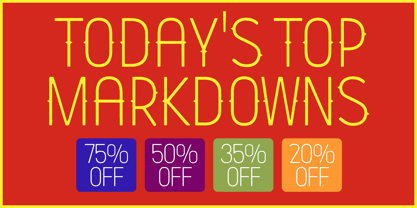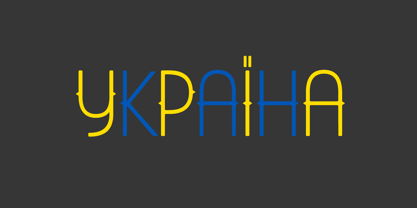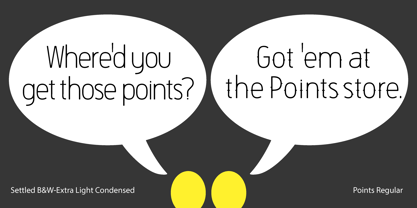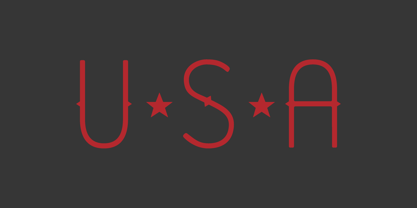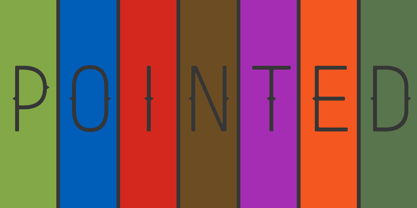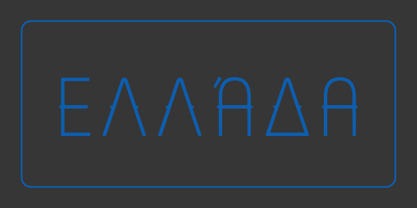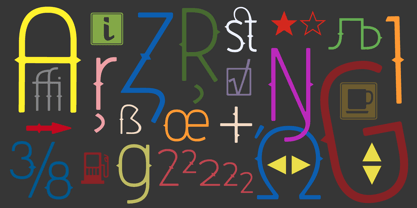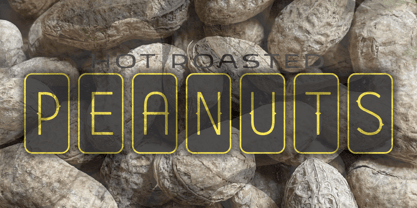
La familia tipográfica Points fue diseñada por Gary Jaffe y publicada por Settled Font Foundry. Points contiene 1 estilos. Más información sobre esta familia
Points is a sans-serif display font whose stems have rounded corners. It is best-suited for applications larger than text paragraphs, such as signage of all sizes, storefronts, headlines, billboards, building signs, brochures, menus, logos, branding, and the like. It can, however, be suitable to some short text paragraphs.
Points is based on Settled B&W-Extra-Light Condensed, with points added. They go together well.
Diseñadores: Gary Jaffe
Fundición: Settled Font Foundry